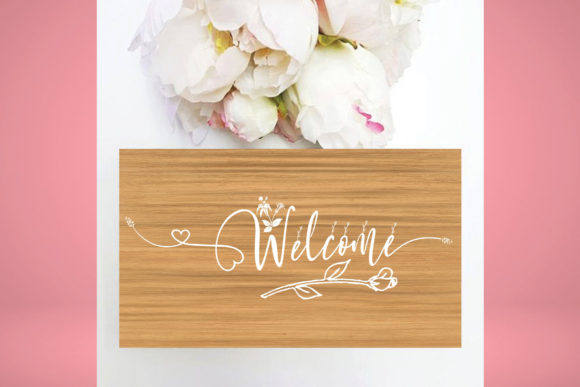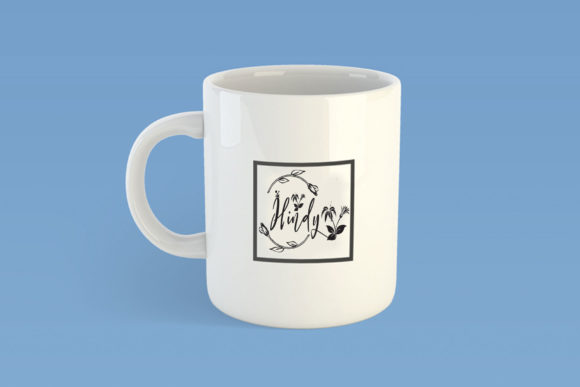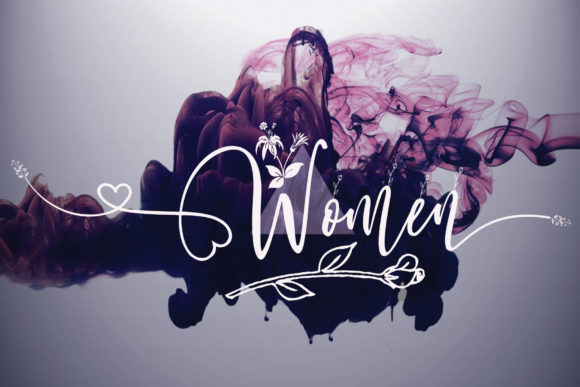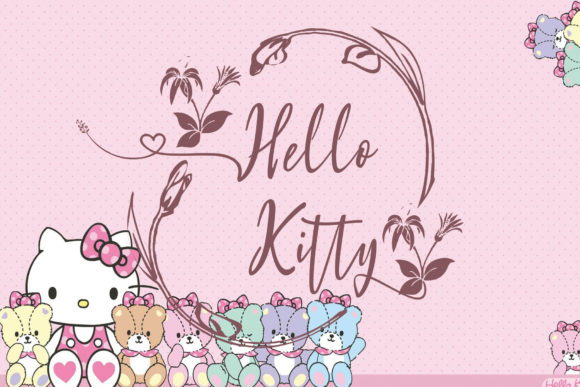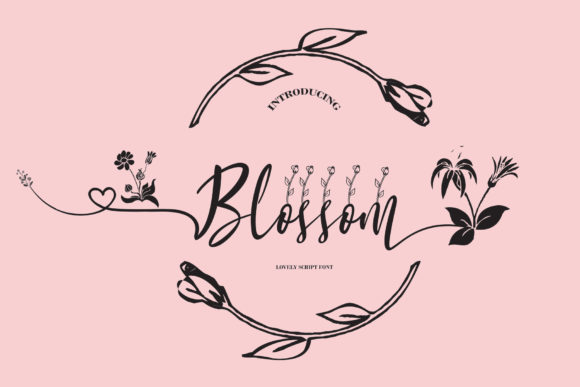
When Creativity Blooms
Do you ever get that spark of inspiration where everything feels just right, and the ideas start flowing? It’s like a beautiful spring morning, full of promise and possibility. For designers, moments like these are priceless, and the right tools can make all the difference. That’s where the Blossom Font comes in – a sweet and cool handwritten font that’s sure to capture the essence of your creative vision.
Blossom Font is more than just a typeface; it’s a way to infuse your designs with a touch of romance and whimsy. Its unique style is perfect for capturing the beauty of life’s little moments, from wedding invitations to greeting cards, and even social media posts. Whether you’re a seasoned designer or just starting out, the Blossom Font is an invaluable addition to your toolkit, guaranteed to help you bring your ideas to life in a way that’s both personal and professional.
Blossom Font Key Features
- Font Family: Blossom is a unique, hand-drawn script font.
- Unique Characteristics: Features a whimsical, floral design with intricate details and subtle texture.
- Character Count: Includes over 500 glyphs, including uppercase and lowercase letters, numbers, and punctuation marks.
Blossom Font Review
At first glance, the Blossom Font seems to be a whimsical and charming addition to any design project. ✨ The delicate floral patterns and intricate details add a touch of elegance and sophistication. The font is particularly well-suited for projects that require a vintage or romantic feel.
One of the standout features of the Blossom Font is its versatility. ✨ It can be used for a wide range of applications, from wedding invitations to children’s book covers. The font’s flexibility in terms of size and color also makes it easy to incorporate into different design elements.
However, there are a few limitations to consider. ⚠️ The font may be too ornate for some projects, and the intricate details may be difficult to read at smaller sizes. Additionally, the font’s complexity may make it challenging to pair with other fonts.
Overall, the Blossom Font is a beautiful and unique addition to any design project. While it may have some limitations, its versatility and charm make it a great choice for the right project. With some careful consideration of the font’s limitations, designers can create truly stunning and memorable designs.
Here are a few recommendations for using the Blossom Font effectively:
- Use the font in conjunction with simpler fonts to avoid overwhelming the design.
- Experiment with different sizes and colors to find the perfect balance for your project.
- Consider using the font for projects that require a vintage or romantic feel.
Tips for Getting the Most Out of the Blossom Font
Use the Blossom Font for:
- Floral-themed designs
- Spring and summer-themed designs
Remember to pair the Blossom Font with other fonts and design elements to create a cohesive and visually appealing design.
The recommended font size for the Blossom Font is between 12-24 points, with a line height of 1.2-1.5 times the font size. This will ensure optimal readability and balance the font’s delicate features.